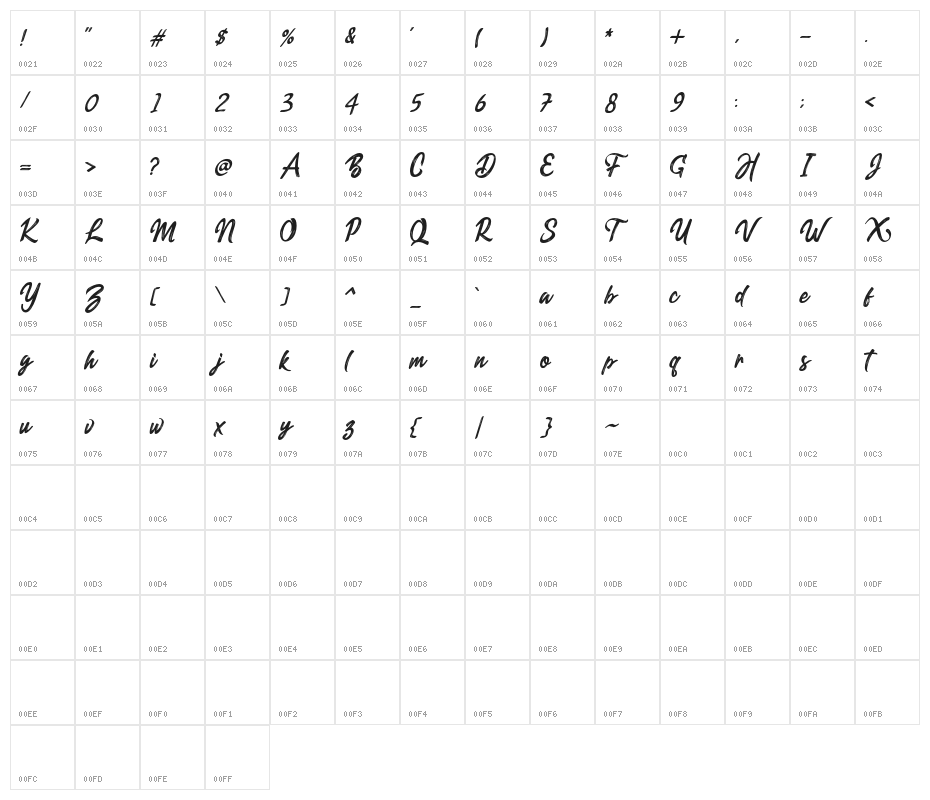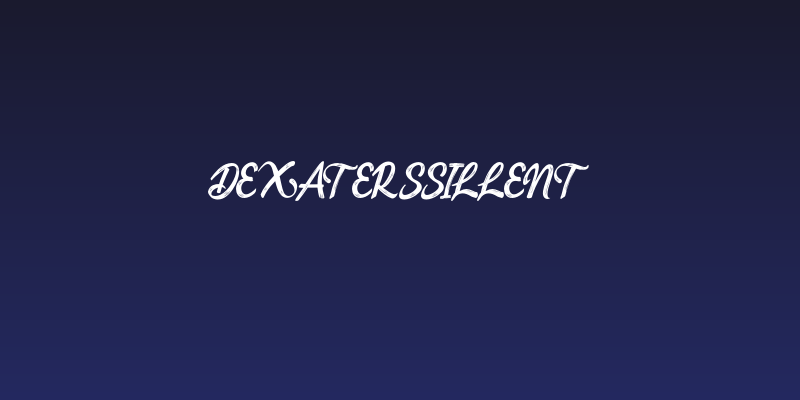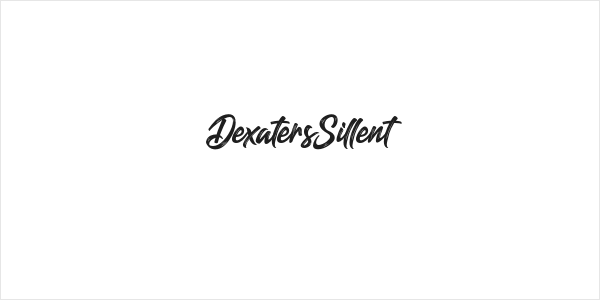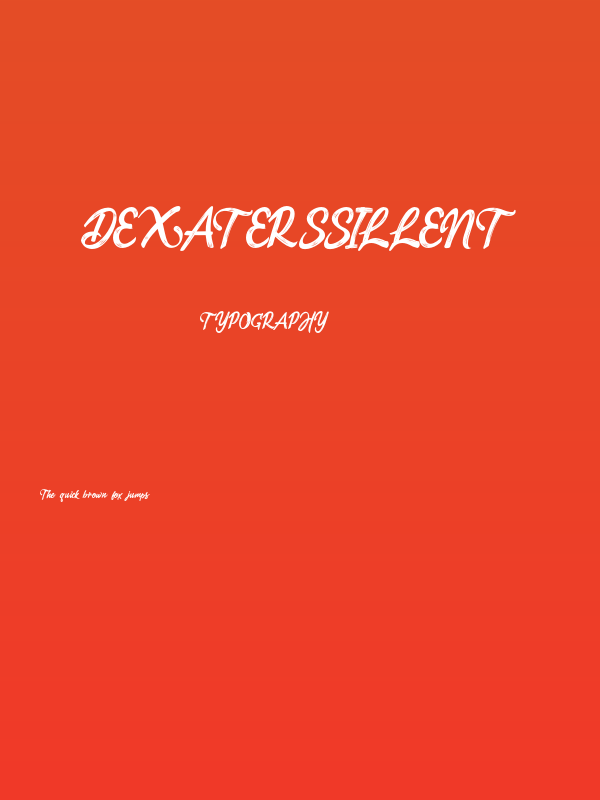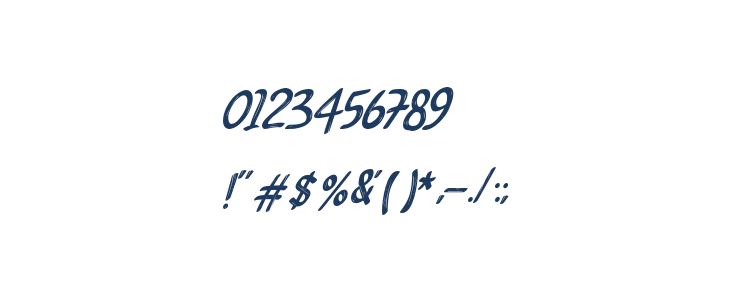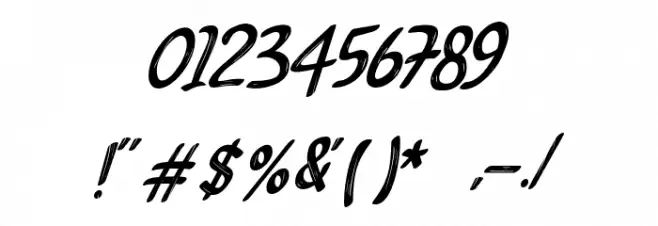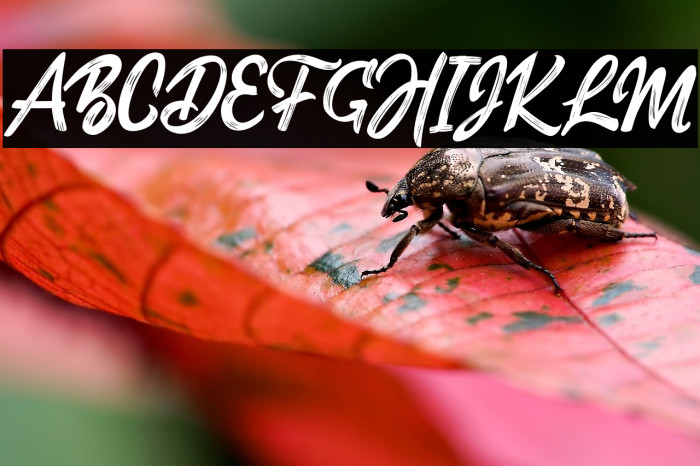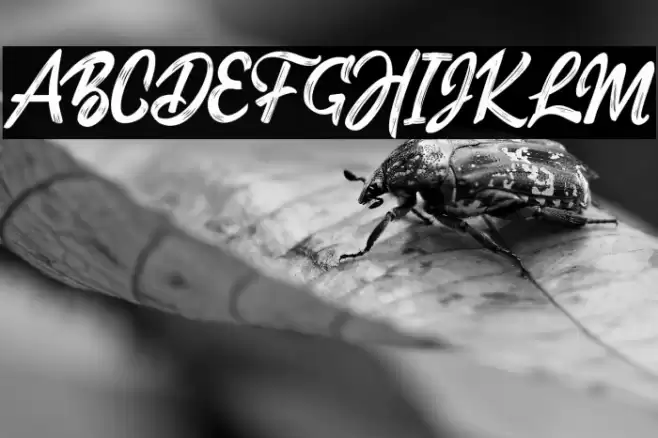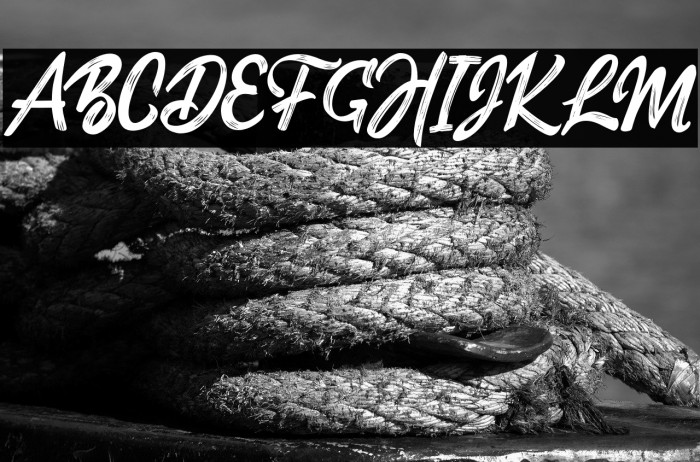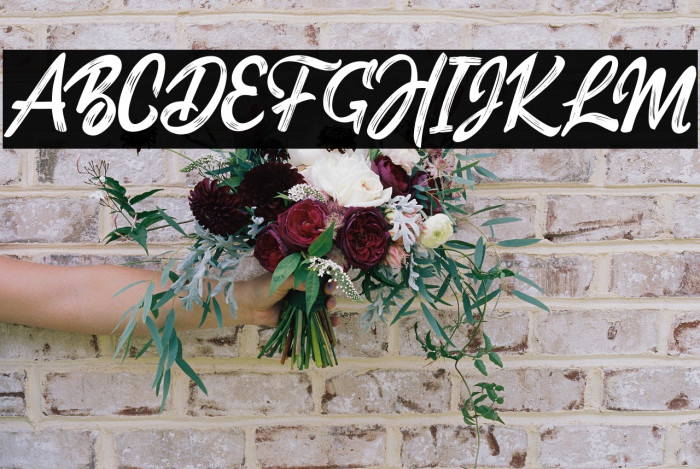
DexatersSillent Font
DexatersSillent Description
This font features a bold and expressive script style, characterized by its flowing, cursive letterforms. The strokes are thick and dynamic, giving a sense of movement and energy. The uppercase letters are particularly striking, with dramatic flourishes and a slightly slanted orientation. The lowercase letters maintain the same fluidity, with smooth connections between characters. Numbers and special characters are designed to match the overall aesthetic, ensuring consistency throughout. This font's boldness and decorative nature make it ideal for attention-grabbing designs.
| Proposed Projects | Ideal for branding, logos, invitations, and headlines where a bold, artistic touch is desired. |